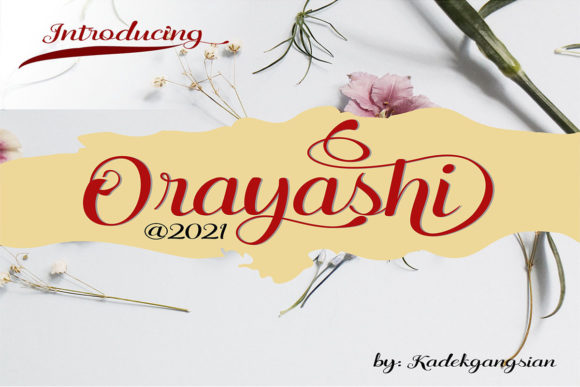
Orayashi Font: The Key to Unlocking Elegance and Distinction
Journey into the realm of typography with Orayashi, a captivating script font that exudes grace and sophistication. Its meticulously crafted curves, delicate strokes, and timeless appeal make it an extraordinary choice for creative visionaries seeking to elevate their designs.
With Orayashi, your words will dance upon the page, evoking emotions and captivating audiences. Picture your website's title, adorned with the refined elegance of Orayashi, inviting visitors to delve into an immersive online experience. Let your social media posts shimmer with charm, as Orayashi transforms ordinary text into eye-catching expressions of artistry.
Orayashi's versatility knows no bounds, effortlessly adapting to a myriad of creative endeavors. Design wedding invitations that radiate romance and elegance, or craft stationery that exudes a touch of timeless sophistication. Unleash your creativity with logos and branding that leave a lasting impression, or let your imagination soar as you create social media posts that captivate and inspire.
Beyond its aesthetic appeal, Orayashi is a font of exceptional functionality. Its PUA encoding ensures effortless access to a treasure trove of glyphs and swashes, empowering you to add intricate details and flourishes to your designs with remarkable ease.
With Orayashi as your creative companion, you possess the power to transform ordinary text into extraordinary expressions of art. Its alluring beauty and boundless versatility make it an indispensable tool for designers, artists, and creatives seeking to captivate and inspire. Embrace the elegance of Orayashi today and embark on a creative journey that knows no limits.